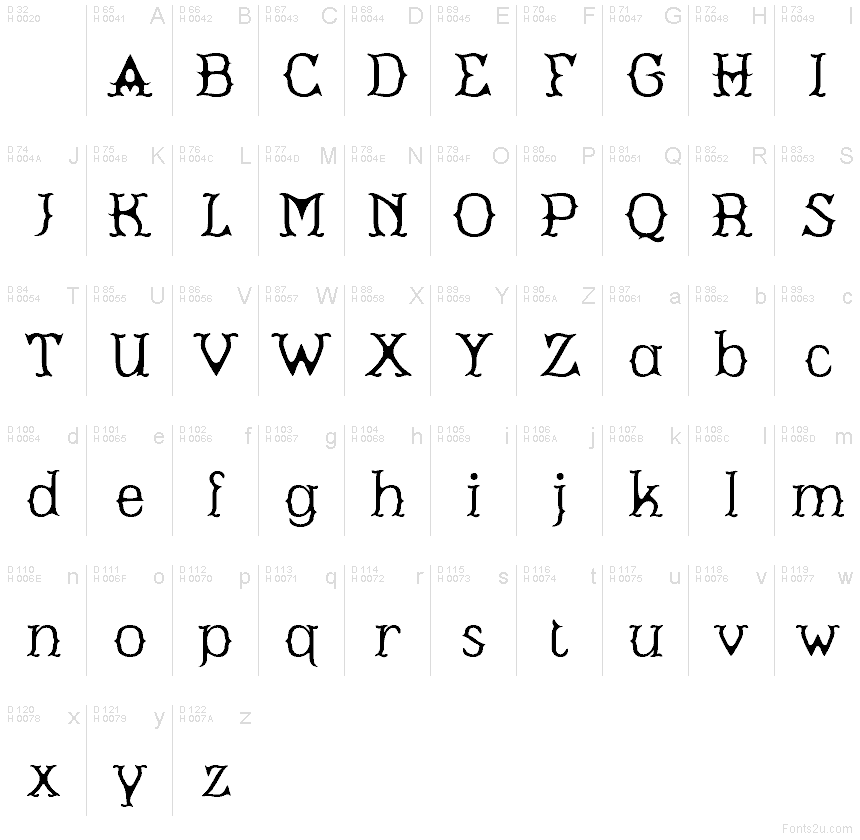
CS Malion Drawn font by Craft Supply Co. is a free hand-drawn gothic font. Part of the CS Malion family, it stands out with inky, uneven contours, thorny serifs, and gently wavering strokes that feel brushed rather than carved. The rhythm is tight but not stiff—curves breathe, edges fray slightly—giving classic gothic structure a human, tactile grit.
Use CS Malion Drawn for dark-fantasy book covers, occult or folklore posters, apothecary labels, boutique branding, game titles, and band merch. The lively texture adds atmosphere at a glance and stays legible in short headlines and logotypes. Pair this free font with a clean, neutral grotesk for body copy, or track it slightly open to let those inky edges shimmer.